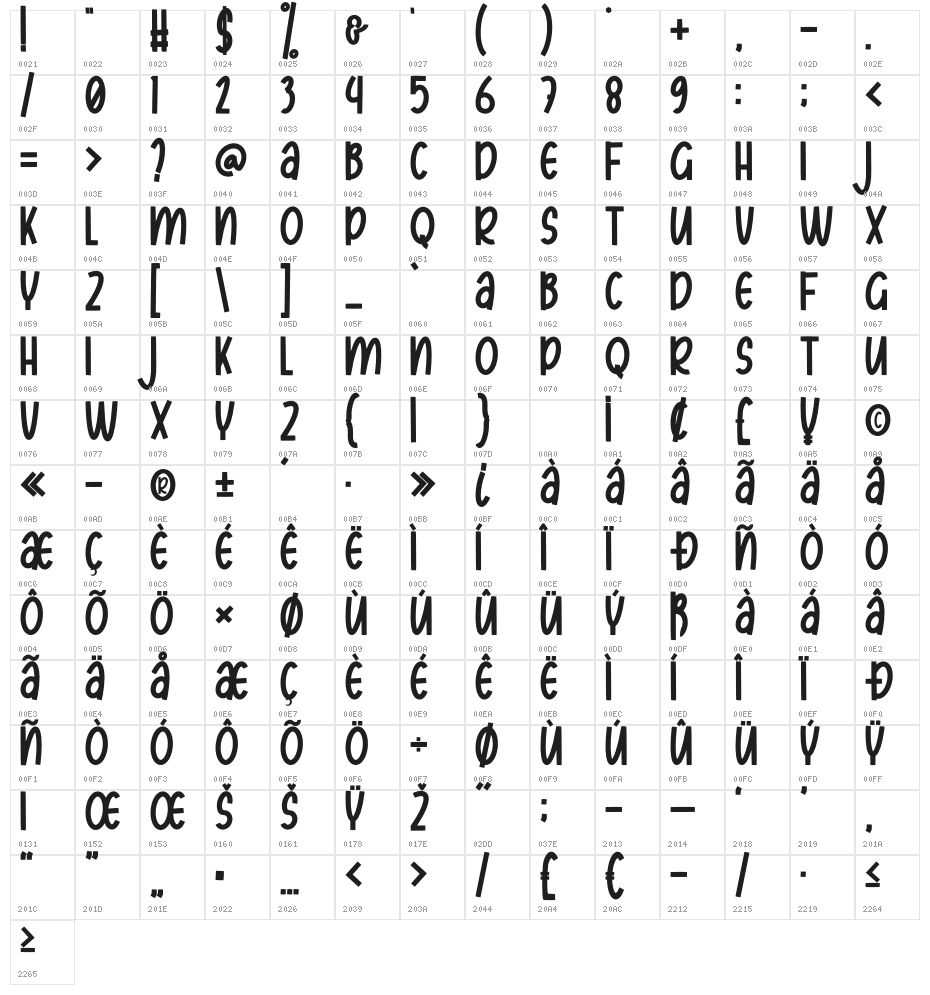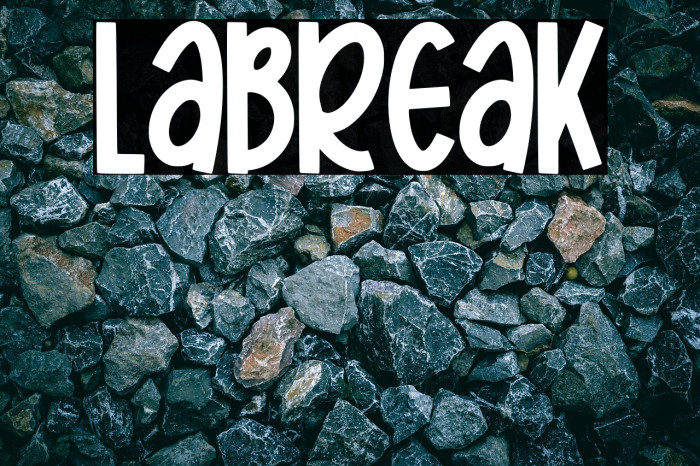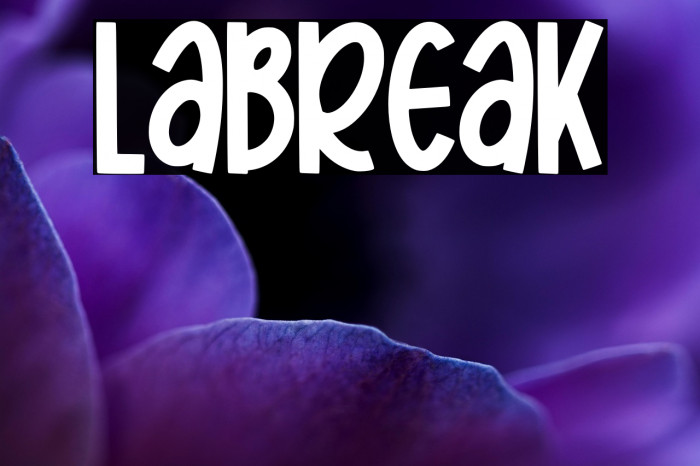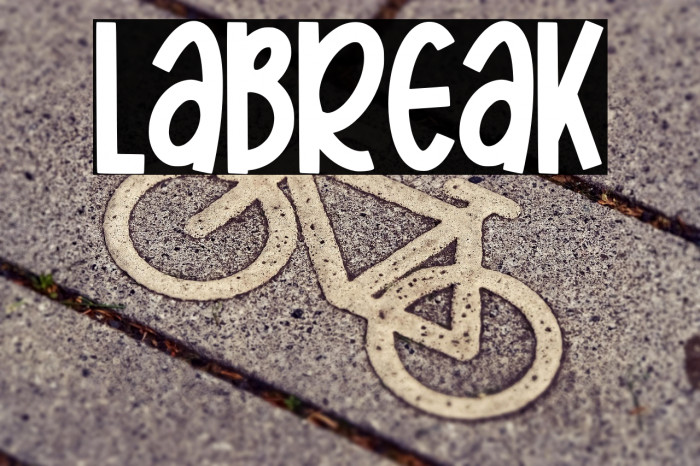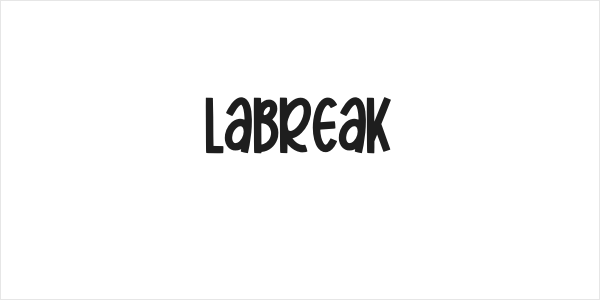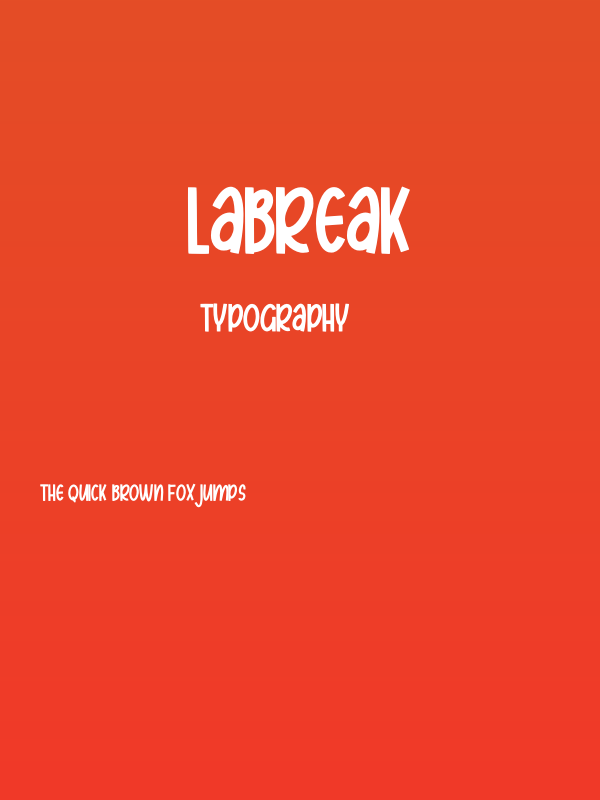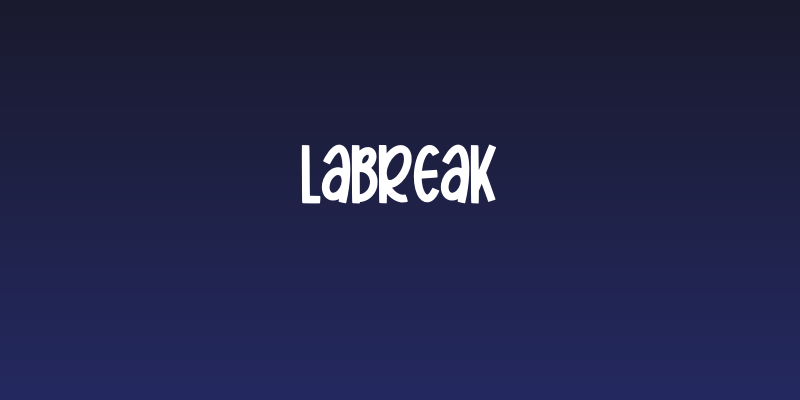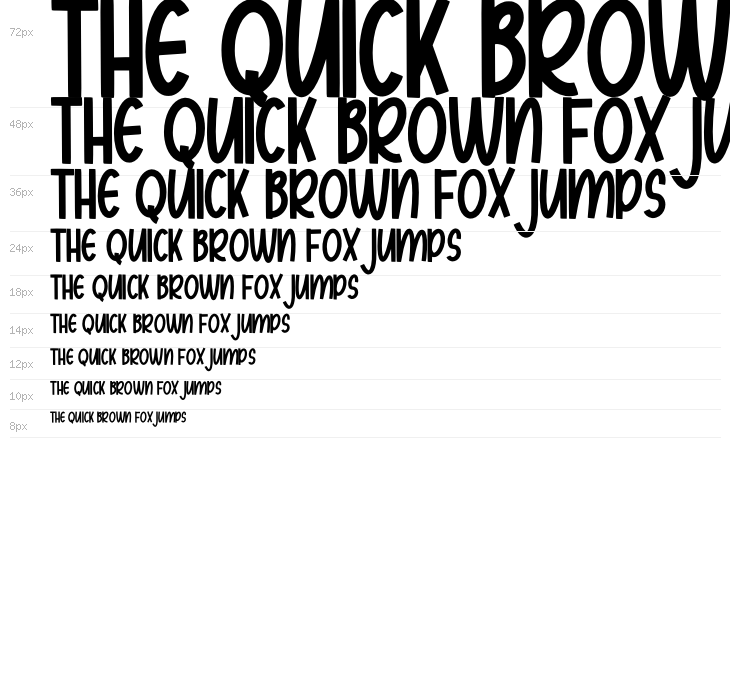
Labreak Font
Labreak Description
This font features a playful and bold design with a hand-drawn aesthetic. The letters are tall and slightly condensed, with a whimsical flair that adds character to each glyph. The uppercase and lowercase letters maintain a consistent style, with rounded edges and a slight slant that gives a sense of movement. Numbers and special characters are equally bold, ensuring legibility and maintaining the font's overall playful tone. The font's unique style makes it suitable for creative projects that require a touch of fun and personality.
| Width | Condensed |
| Overall Style | Playful |
| Proposed Projects | Ideal for children's book covers, playful branding, posters, and creative social media graphics. |